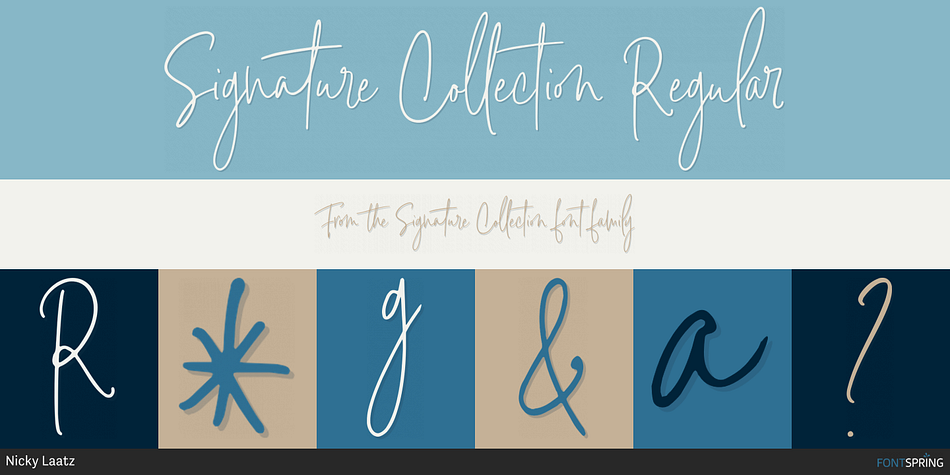
Signature Collection Regular
Designed by Nicky Laatz, Signature Collection is a modern calligraphy and script font family. This typeface has two styles and was published by Nicky Laatz.
Get ultra chic with the new ‘Signature Collection’ handwritten font - A stylish and super-casual font created to look as close to natural handwriting as possible by including over 100 carefully designed, natural looking opentype ligatures, and a full set of lowercase alternates.
Loaded with built in Opentype features, it’s recommended that you use it with your opentype ligatures option turned on in your character settings, then watch as, like magic, this script comes to life as if you are writing it yourself.